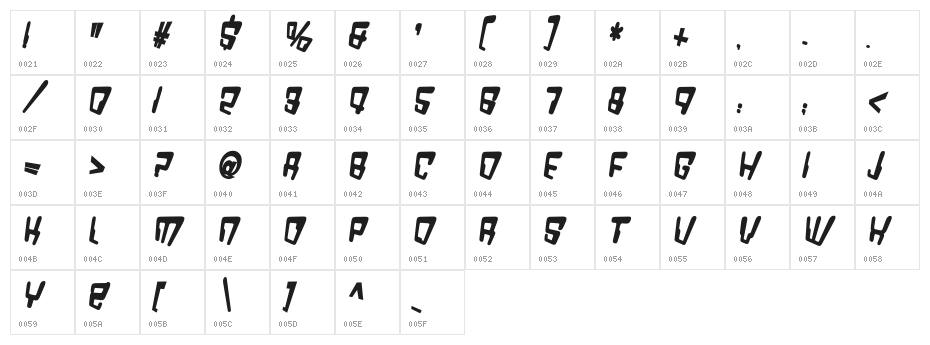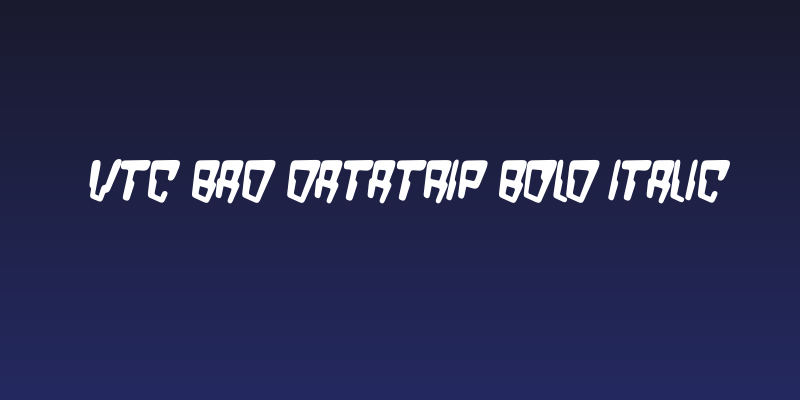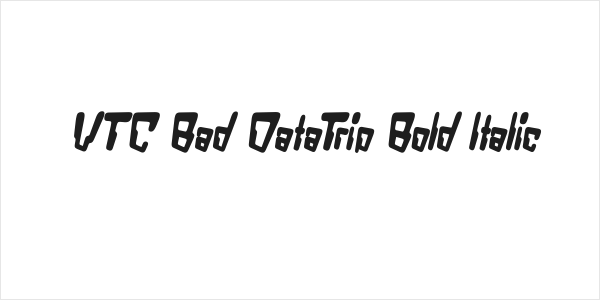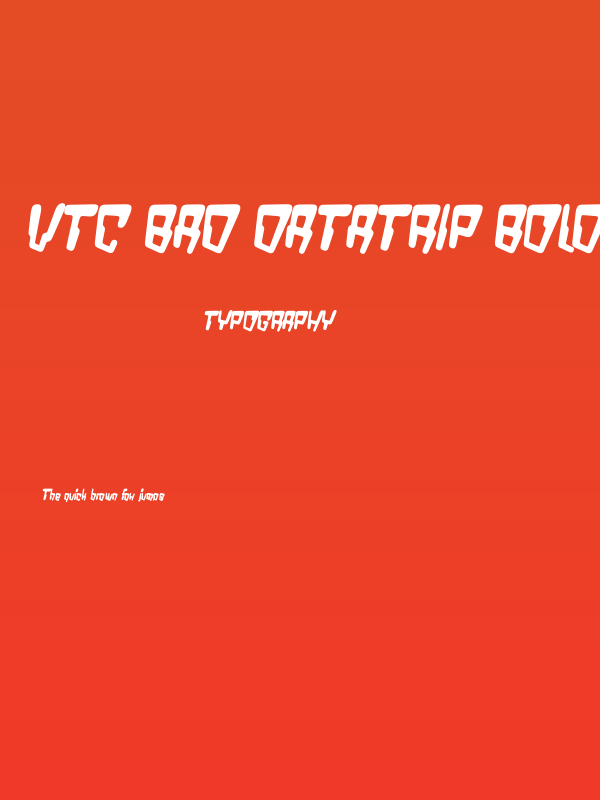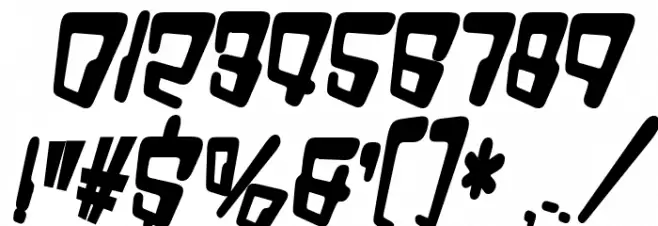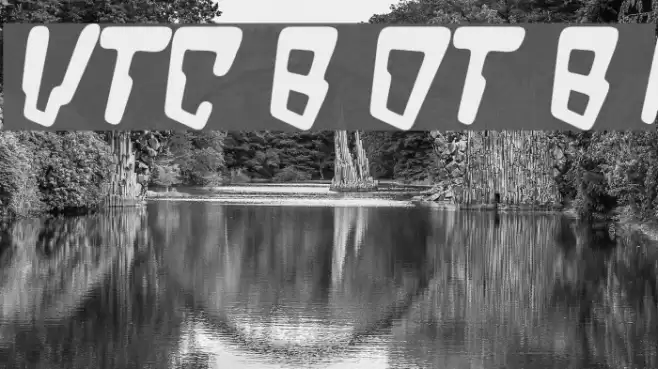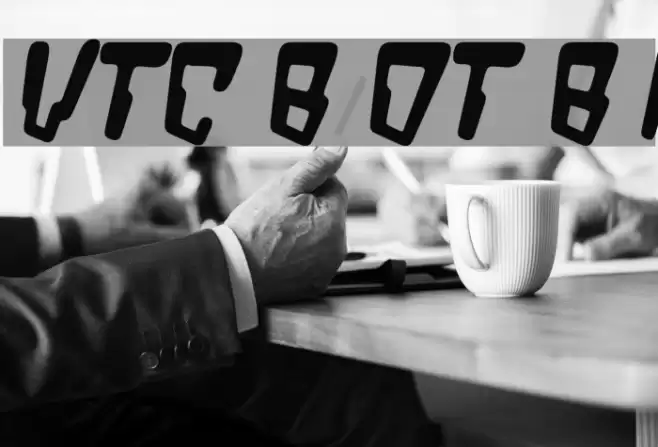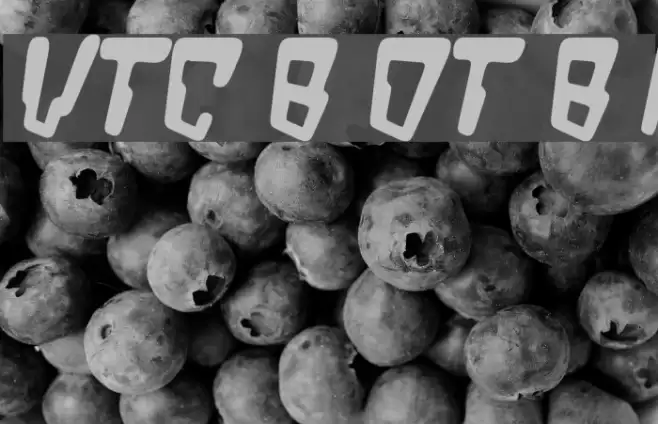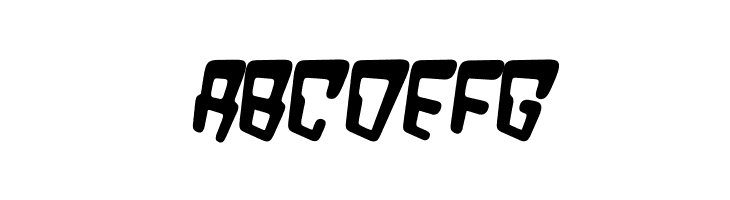
VTC Bad DataTrip Bold Italic Font
VTC Bad DataTrip Bold Italic Description
This font features a bold and italicized style with a futuristic and edgy appearance. The characters are designed with a unique, angular form that gives them a dynamic and energetic feel. The uppercase and lowercase letters maintain a consistent slant, enhancing the italic effect. The numbers and special characters follow the same design principles, ensuring uniformity across the font. The bold weight of the font makes it stand out, while the italic style adds a sense of motion and speed. This font is ideal for projects that require a modern and unconventional look.